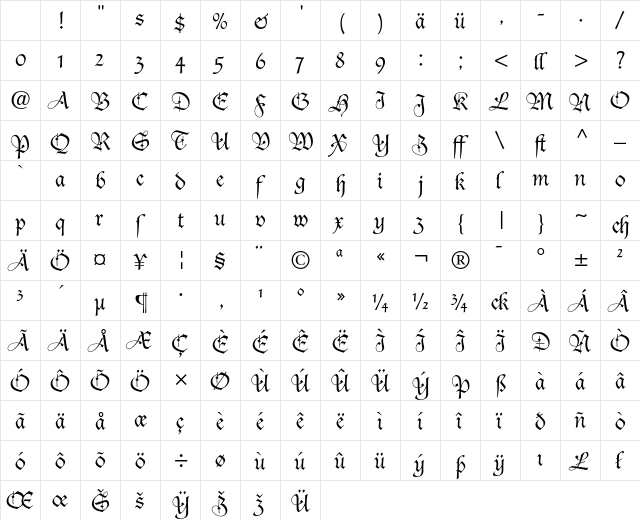
Complete Duc De Berry Dfr glyph index. Displaying only characters natively supported by Duc De Berry Dfr font.
Duc De Berry is a composed and adaptable typeface that performs quietly and consistently across a wide range of design contexts.